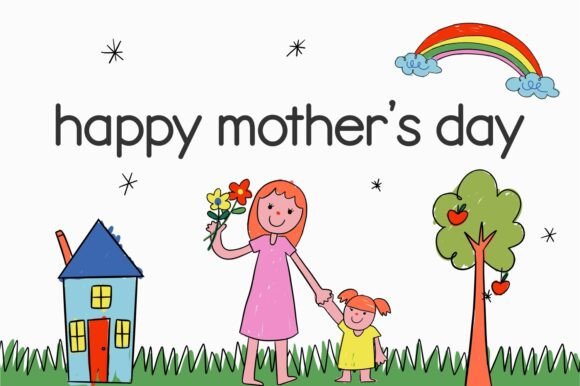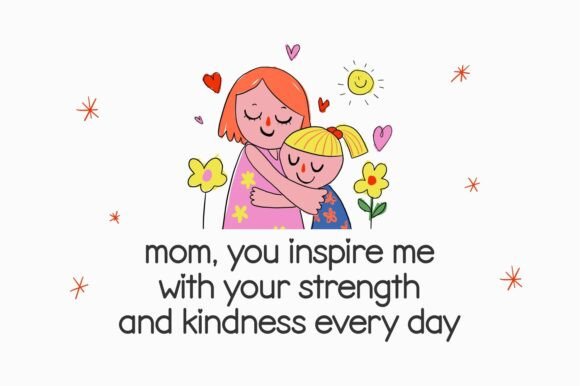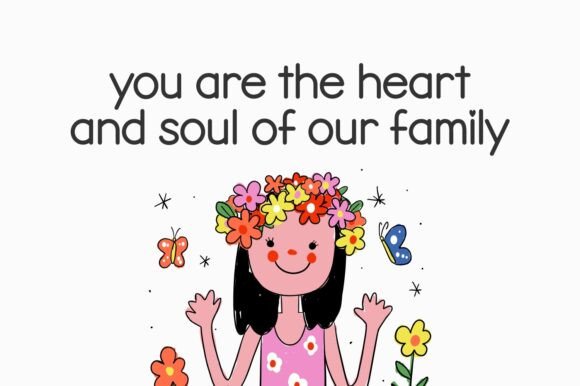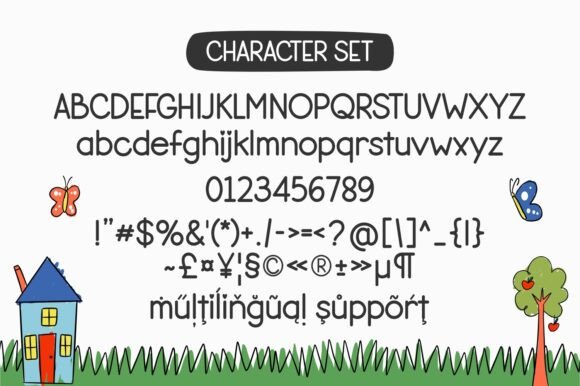
Introducing Cutie Mama: The Adorable Handwritten Font That Radiates Sweetness and Charm!
Are you tired of using the same old fonts for your projects? Do you want to add a touch of love and personality to your designs? Look no further than Cutie Mama, the adorable handwritten font that’s perfect for creating lovely notes, cute cards, and any project that needs a dash of charm!
The Perfect Blend of Sweetness and Versatility
Cutie Mama is a beautifully crafted handwritten font that exudes warmth and friendliness. Its rounded, soft shapes and playful color palette make it an ideal choice for designers and crafters who want to create projects that are both visually appealing and emotionally resonant. Whether you’re designing a greeting card, a scrapbook page, or a social media graphic, Cutie Mama is the perfect font to add a touch of whimsy and delight.
What Makes Cutie Mama So Special?
- Rounded and Soft Shapes: Cutie Mama’s rounded shapes give it a soft and cuddly feel that’s perfect for creating projects that need a touch of warmth and personality.
- Playful Color Palette: The font’s playful color palette adds a dash of fun and whimsy to any project, making it perfect for designers and crafters who want to create visually appealing designs.
- Heart-Shaped Accents: The heart-shaped accents in Cutie Mama give it a delightful personal touch that’s perfect for creating projects that need a touch of love and care.
- Simple and Clean Design: Despite its playful and whimsical feel, Cutie Mama has a simple and clean design that makes it versatile enough for everyday use.
Ideal for Crafting Heartfelt Messages
Cutie Mama is more than just a font – it’s a way to express yourself and connect with others on a deeper level. Whether you’re designing a greeting card, a gift tag, or a social media graphic, Cutie Mama helps you craft heartfelt messages that resonate with your audience. The font’s sweet and charming personality makes it perfect for:
- Creating lovely notes and cards for special occasions
- Designing social media graphics that need a touch of personality
- Crafting gift tags and labels that add a personal touch
- Developing brand identities that need a friendly and approachable feel
Full Multilingual Support for Global Projects
Cutie Mama is more than just a beautiful font – it’s also a versatile one. With full multilingual support, you can use Cutie Mama for projects that need to communicate with a global audience. Whether you’re designing for a international brand or creating a project that needs to be translated into multiple languages, Cutie Mama has got you covered.
Why Choose Cutie Mama?
So why choose Cutie Mama over other fonts? Here are just a few reasons:
- Unique and Eye-Catching: Cutie Mama is a one-of-a-kind font that’s sure to grab attention and leave a lasting impression.
- Versatile and Adaptable: The font’s simple and clean design makes it versatile enough for everyday use, while its playful color palette and heart-shaped accents add a touch of whimsy and delight.
- Perfect for Designers and Crafters: Whether you’re a professional designer or a crafter who loves to DIY, Cutie Mama is the perfect font for anyone who wants to add a touch of love and personality to their projects.
Get Ready to Fall in Love with Cutie Mama!